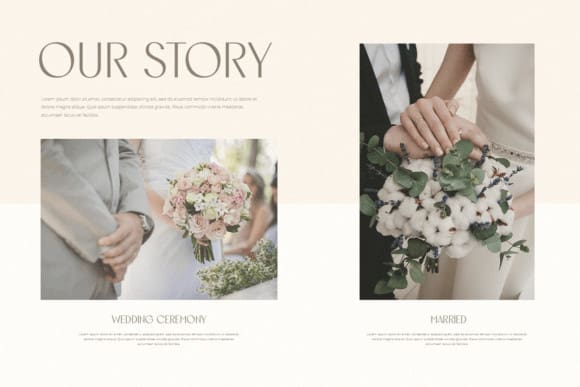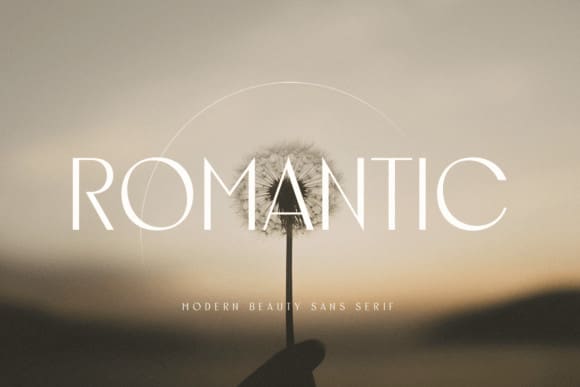
Romantic Sans Font
Romantic Sans Font – A Sans Serif font that we created especially for branding needs with a classy shape to add value to your brand. It’s so nice to leverage designers or product owners who need solutions to make their designs look more classy and fashionable. And especially for Romantic font, We prepare any characters with Elegant shapes to help you create a classy style of your design.